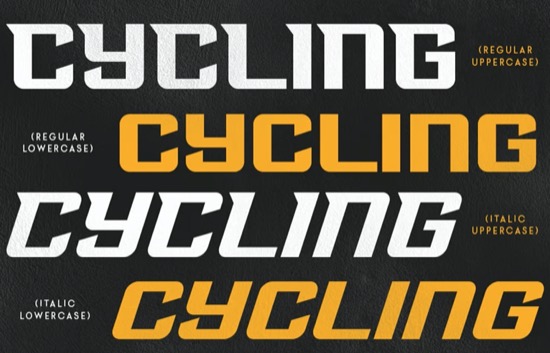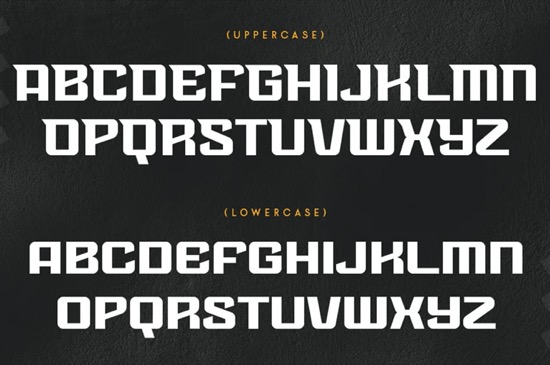
Cycling Font
Cycling is a dynamic and classy display font that merges the freeform energy of sans with a modern, urban aesthetic. It’s created especially for branding, headline and other remarkable sports and action typography. It is so perfect to add your style and preview to headlines for sports, technology, actions and fighting theme. And especially for this font, we designed it for bold action style and modern touch. So enjoy creating any project that will highlight your main idea.